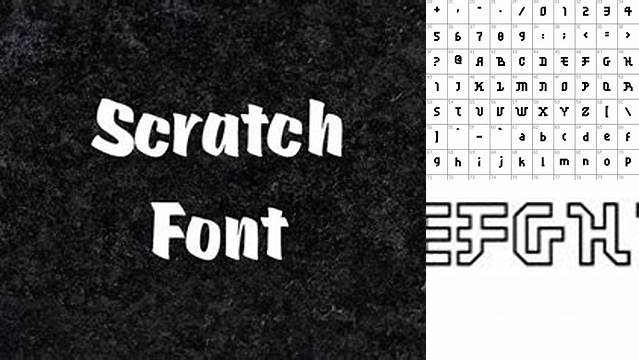
FF Scratch Regular Font: An Overview
First things first, let's get to know the star of the show: the FF Scratch Regular font. This font is known for its distinctive and slightly rugged appearance, giving it a handwritten or sketched vibe. This makes it perfect for projects that need a touch of personality and a raw, authentic feel. Think about it – if you're working on a project that requires a casual, friendly, or even a slightly edgy aesthetic, FF Scratch Regular could be your secret weapon. It's a fantastic choice for headings, logos, quotes, and any design element where you want to make a statement. The versatility of the FF Scratch Regular font allows it to be used across various design fields. Whether you're designing a website, creating marketing materials, or crafting invitations, this font can add a unique flair. Its readability ensures your message is clear while still maintaining a distinct visual appeal. Consider using it for social media graphics to give your posts a unique look that grabs attention. Its informal style can also work well for personal projects, like scrapbooks or DIY crafts, giving them a personalized feel. Using FF Scratch Regular font will enable you to boost your creative output, adding a touch of character and style to your projects. Knowing its attributes and possible use cases will greatly improve the impact of your design projects. In essence, FF Scratch Regular is not just a font; it’s a tool to help you express yourself more creatively and effectively. The flexibility of FF Scratch Regular makes it a great choice for both digital and print designs. Its adaptability to different platforms and mediums gives you the freedom to implement it in various creative contexts.
Design and Characteristics
Let's dive deeper into the design and characteristics of the FF Scratch Regular font. This font has a unique look and feel, making it stand out. It's not your typical clean and polished font; instead, it has a more handmade or sketched quality. This gives it a charm and personality that's hard to find in more generic typefaces. The strokes of the characters often have a slight imperfection, as if they were drawn by hand, which adds to its organic and authentic appeal. This is what gives the font its scratch-like appearance. The font's design also makes it highly readable. Despite its unique style, it's easy to understand, making it an excellent option for headings, titles, and short pieces of text. Think about its suitability for designs that need a slightly raw aesthetic, where a perfect or overly polished look wouldn't fit. The FF Scratch Regular font is perfect for a variety of projects, from creating logos to designing social media posts. You can use it for anything from personal projects to professional work. Its versatile design is made to grab attention. The imperfections add to the font's unique charm and allow it to easily blend with any project you want to design. Its characteristics make it a versatile and appealing option.